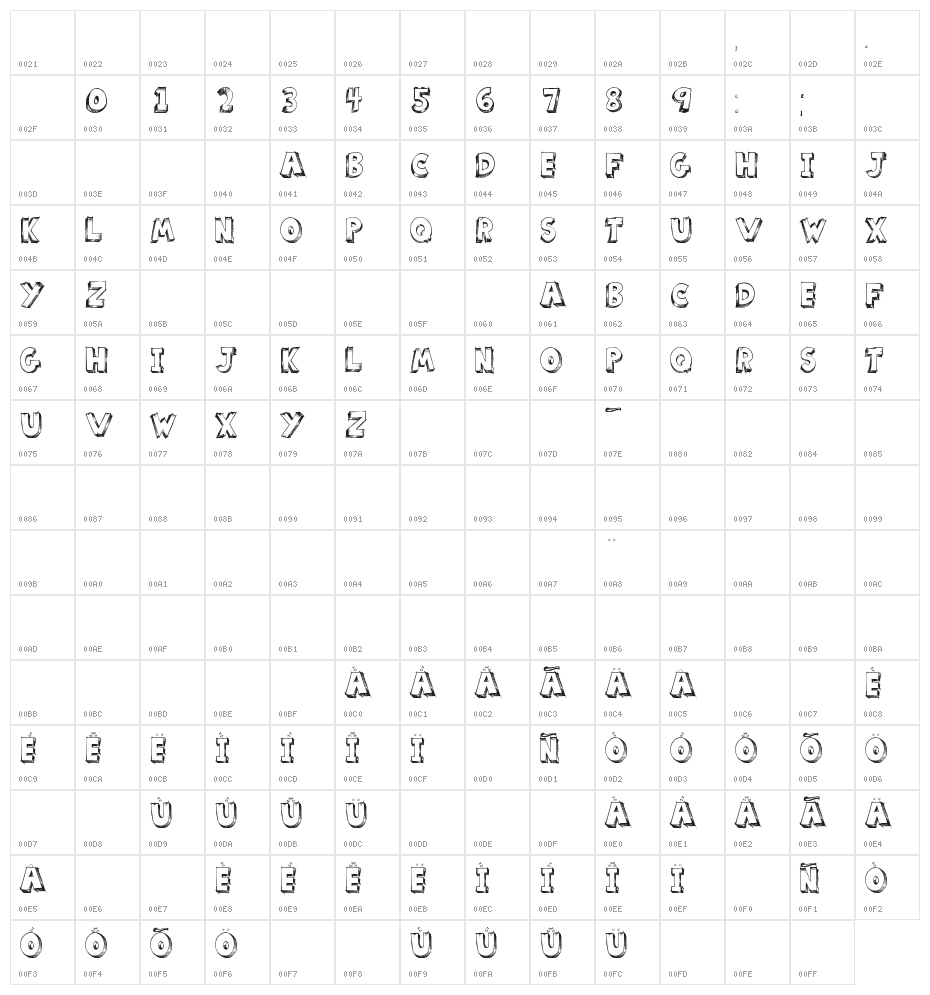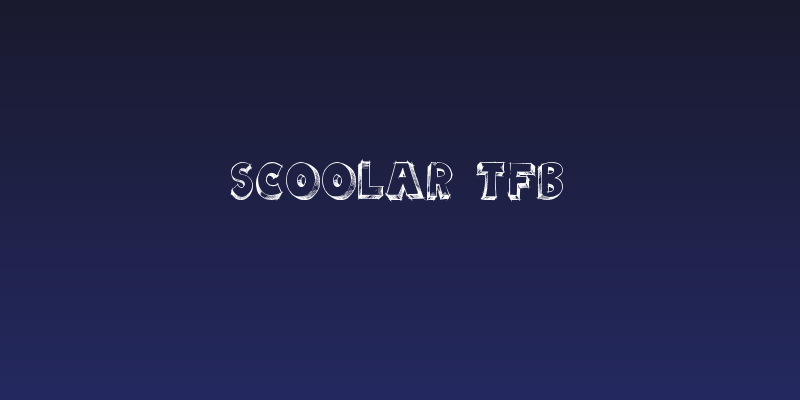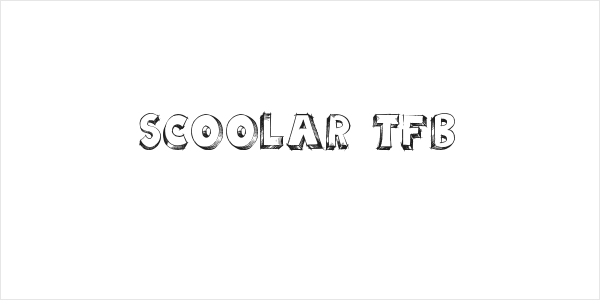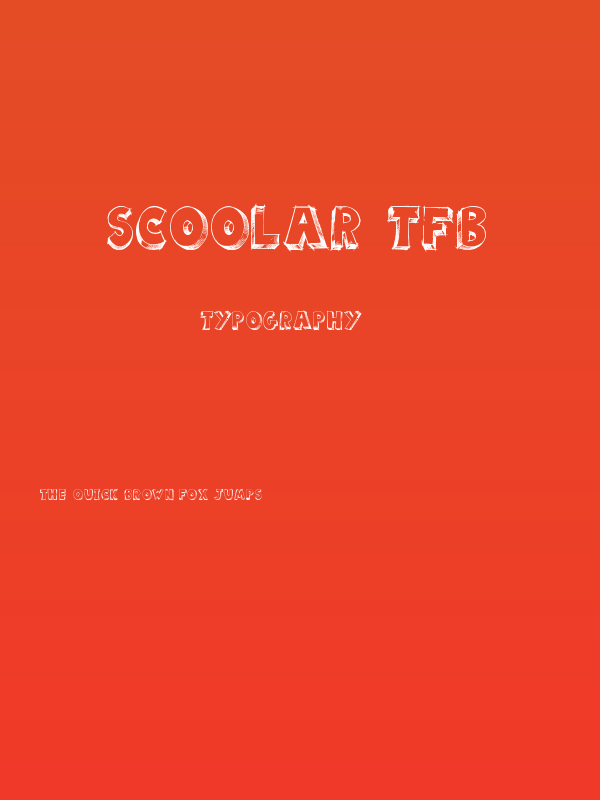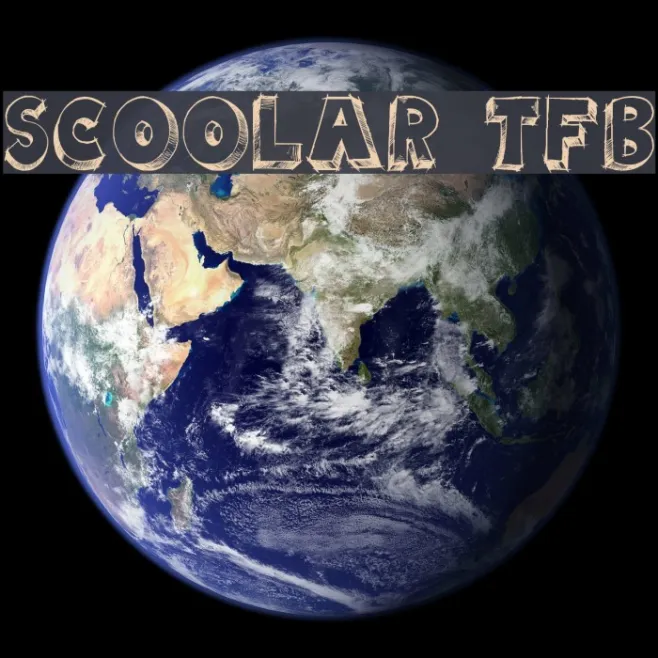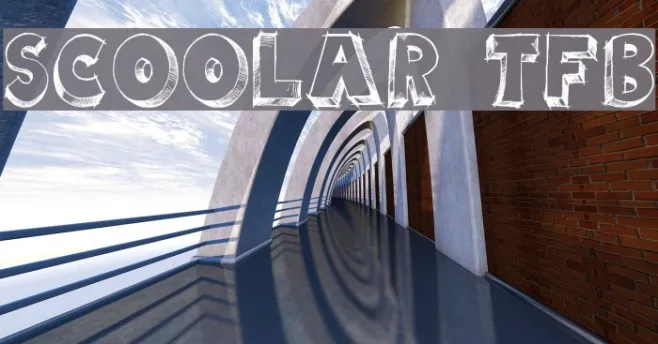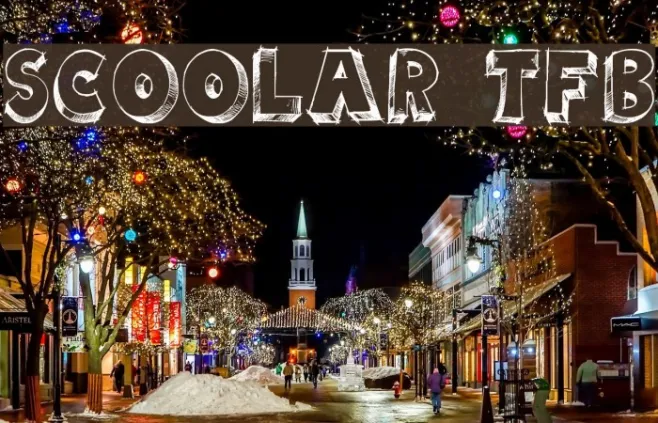
scoolar tfb Font
scoolar tfb Description
This font features a playful and sketchy design, with each character appearing as if it has been hand-drawn with a pencil. The letters have a three-dimensional effect, with shading that gives them depth and a slightly rough texture. The uppercase and lowercase letters maintain a consistent style, with bold outlines and irregular edges that contribute to its informal and artistic appearance. The numbers and special characters follow the same design principles, ensuring a cohesive look across all elements. This font's unique style makes it stand out, offering a creative and whimsical touch to any project.
| Proposed Projects | Ideal for children's books, comic strips, creative posters, and playful branding. |